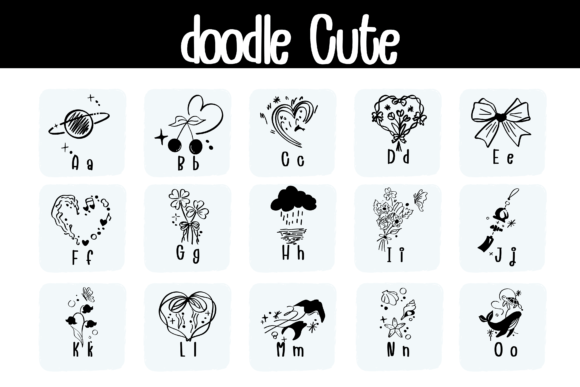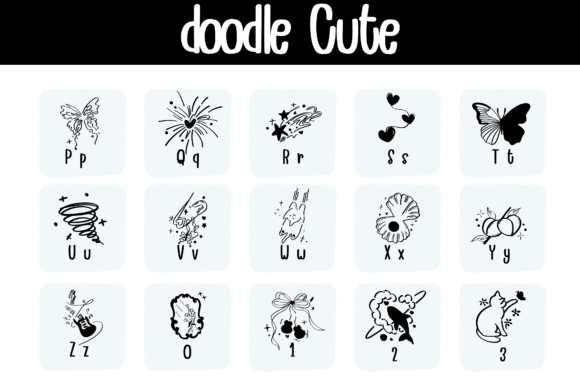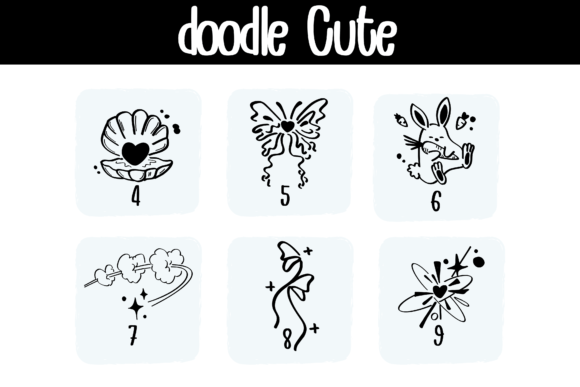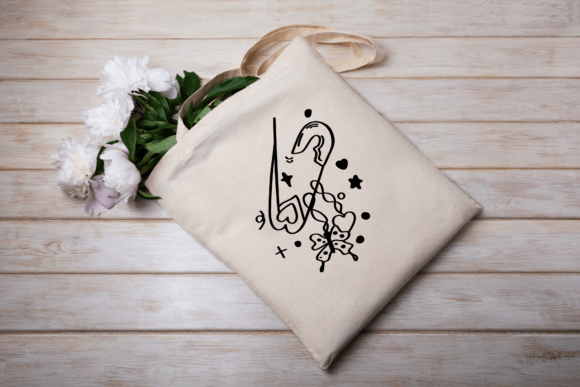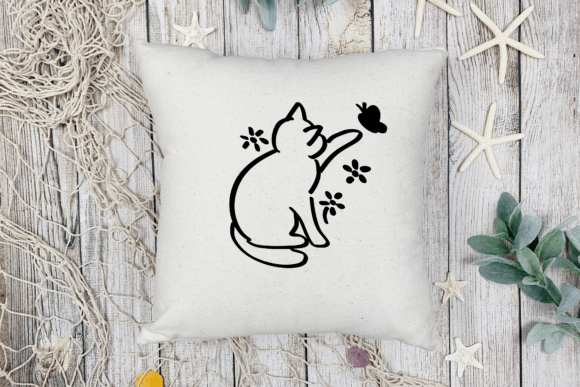
Doodle Cute Font: Add a Touch of Whimsy to Your Creative Projects
Are you looking for a font that can add a dash of fun and playfulness to your creative projects? Look no further than Doodle Cute, a lovely dingbat font with a fun theme that’s perfect for designers and crafters alike. In this article, we’ll explore the features and benefits of Doodle Cute and show you how it can enhance your wedding invitations, DIY projects, crafts, decorations, logos, and many other creative ideas.
What is Doodle Cute Font?
Doodle Cute is a dingbat font that features a collection of adorable doodles and illustrations, including cute animals, flowers, hearts, and more. The font is designed to be fun and playful, making it perfect for projects that require a touch of whimsy. With Doodle Cute, you can add a personal touch to your designs and make them stand out from the crowd.
Features of Doodle Cute Font
Doodle Cute font comes with a range of features that make it a versatile and easy-to-use font. Some of its key features include:
- Fun and playful design: Doodle Cute features a fun and playful design that’s perfect for adding a touch of whimsy to your projects.
- Wide range of doodles: The font includes a wide range of doodles and illustrations, including cute animals, flowers, hearts, and more.
- Easily scalable: Doodle Cute is easily scalable, making it perfect for use in a variety of projects, from small crafts to large-scale designs.
Uses of Doodle Cute Font
Doodle Cute font is a versatile font that can be used in a variety of creative projects. Here are some ideas to get you started:
- Wedding invitations: Add a touch of whimsy to your wedding invitations with Doodle Cute. The font is perfect for creating custom illustrations and decorations.
- DIY projects: Doodle Cute is perfect for DIY projects, such as crafting, scrapbooking, and home decor.
- Crafts: The font is great for use in crafts, such as card making, gift tagging, and paper crafting.
- Decorations: Use Doodle Cute to create custom decorations, such as garlands, banners, and signs.
- Logos: The font is also great for use in logos, particularly for businesses that want to convey a fun and playful brand image.
Tips for Using Doodle Cute Font
Here are some tips for using Doodle Cute font in your creative projects:
- Experiment with different sizes and colors: Don’t be afraid to experiment with different sizes and colors to add depth and interest to your designs.
- Combine with other fonts: Combine Doodle Cute with other fonts to create a unique and eye-catching design.
- Use it sparingly: Use Doodle Cute sparingly to add a touch of whimsy to your designs. Too much of a good thing can be overwhelming.
Doodle Cute font is a fun and playful dingbat font that’s perfect for designers and crafters alike. With its wide range of doodles and illustrations, it’s easy to add a touch of whimsy to your creative projects. Whether you’re creating wedding invitations, DIY projects, crafts, decorations, logos, or other creative ideas, Doodle Cute is a great choice. So why not give it a try and see how it can enhance your designs?